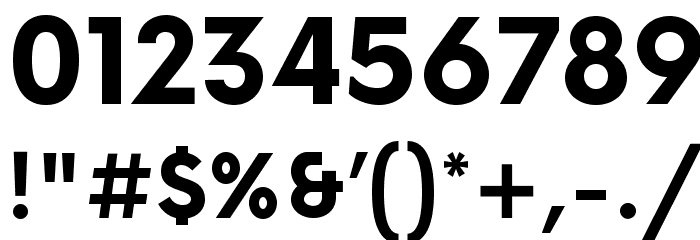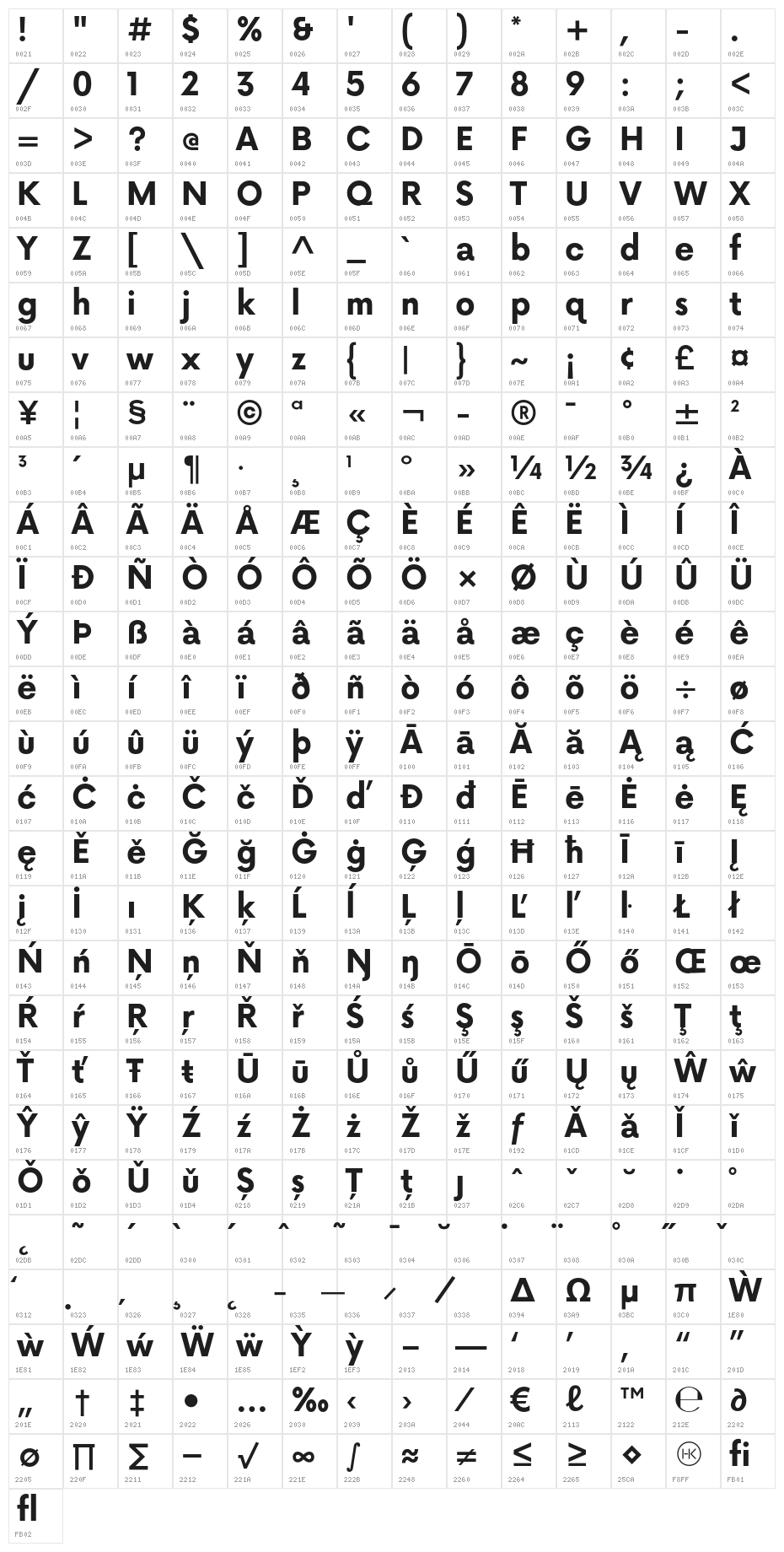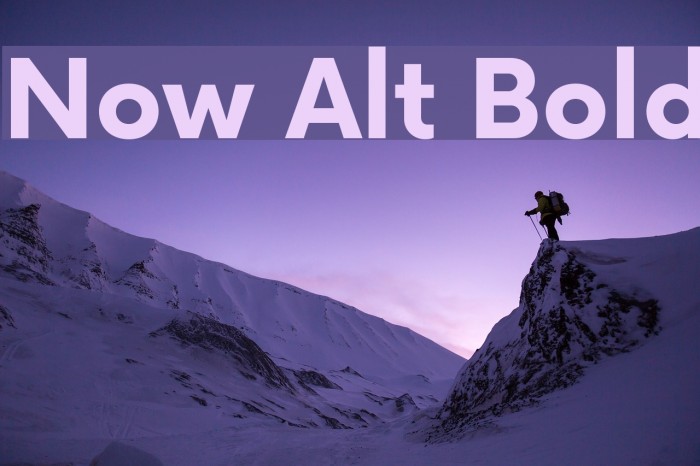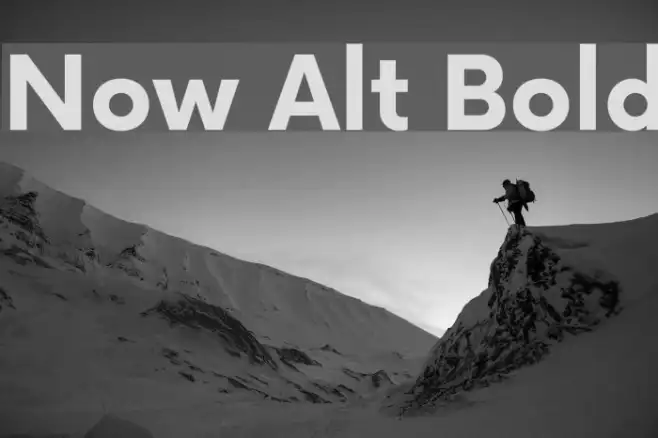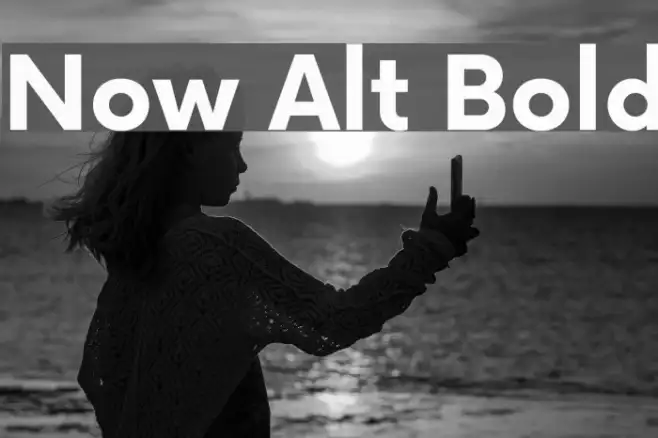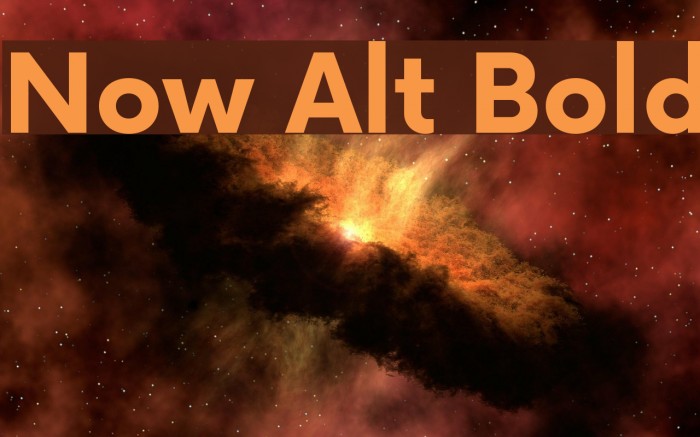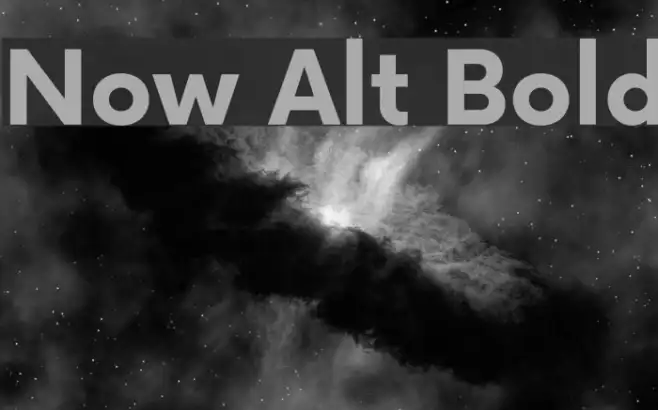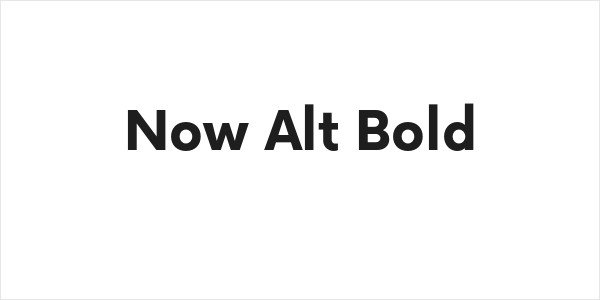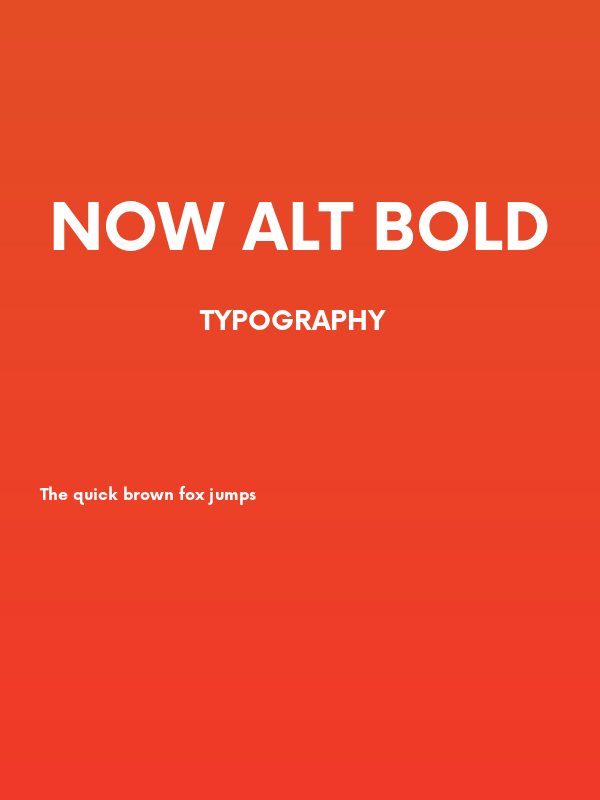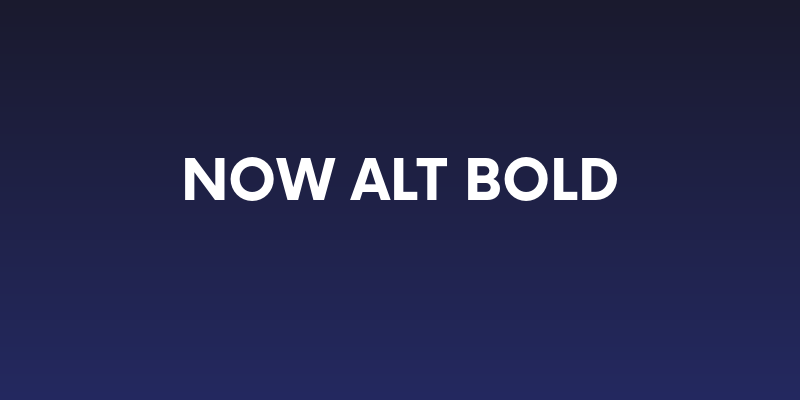
Now Alt Bold Font
Now Alt Bold Description
This font exhibits a bold and modern aesthetic with clean, geometric lines and a strong presence. The uppercase and lowercase letters are well-proportioned, offering a sense of balance and clarity. The numerals are straightforward and align well with the overall design, ensuring readability. Special characters are distinct and maintain the font's cohesive style. The bold weight enhances its visibility, making it suitable for impactful design projects. Its sans-serif nature provides a contemporary feel, ideal for modern branding and advertising.